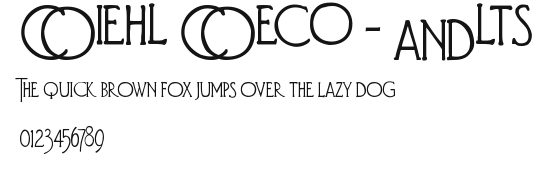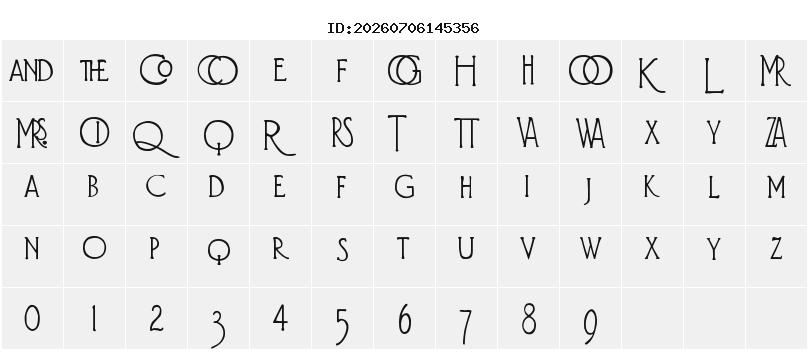
• Font Name: Diehl Deco - Alts
• Full Font Name: Diehl Deco - Alts
• Copyright: © Marley S. Diehl & Apostrophic Laboratories. All rights reserved. Based on 1940 lettering by Wooster Bard Field.
• Designer: Apostrophe & Marley S. Diehl
• Description: © Marley S. Diehl & Apostrophic Laboratories. All rights reserved. Based on 1940 lettering by Wooster Bard Field.
About Diehl Deco - Alts.ttf
Diehl Deco - Alts.ttf is a modern, elegant sans-serif font designed for ultimate readability and visual harmony. Perfect for branding, headlines, web design, and print materials.